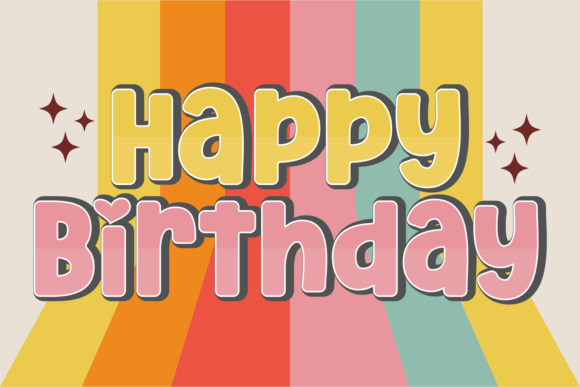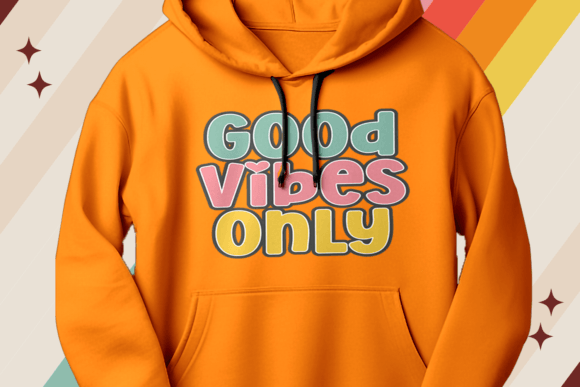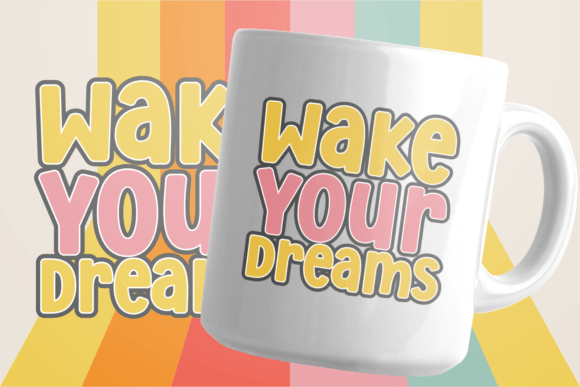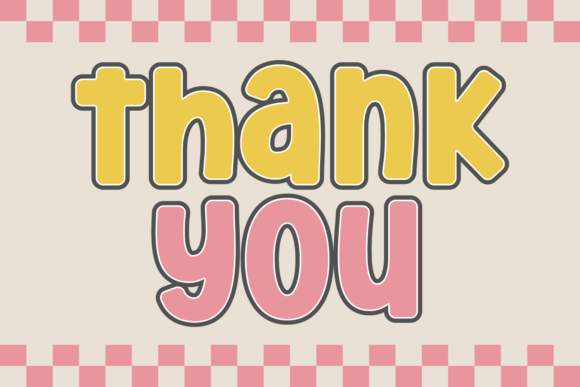
Kinder Monday Font
Kinder Monday is a fun and bold display font that brings joy to your projects. With playful curves and a bold attitude, it adds a cheerful touch to any design. Perfect for headlines, posters, or anything that needs a splash of personality, Kinder Monday is sure to make your text stand out with its lively charm.